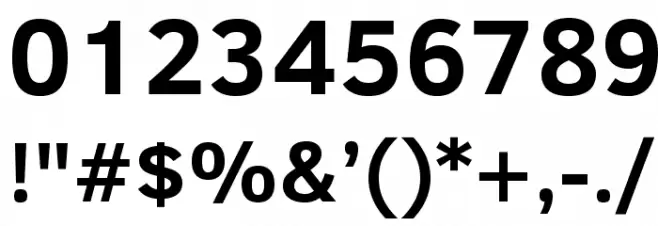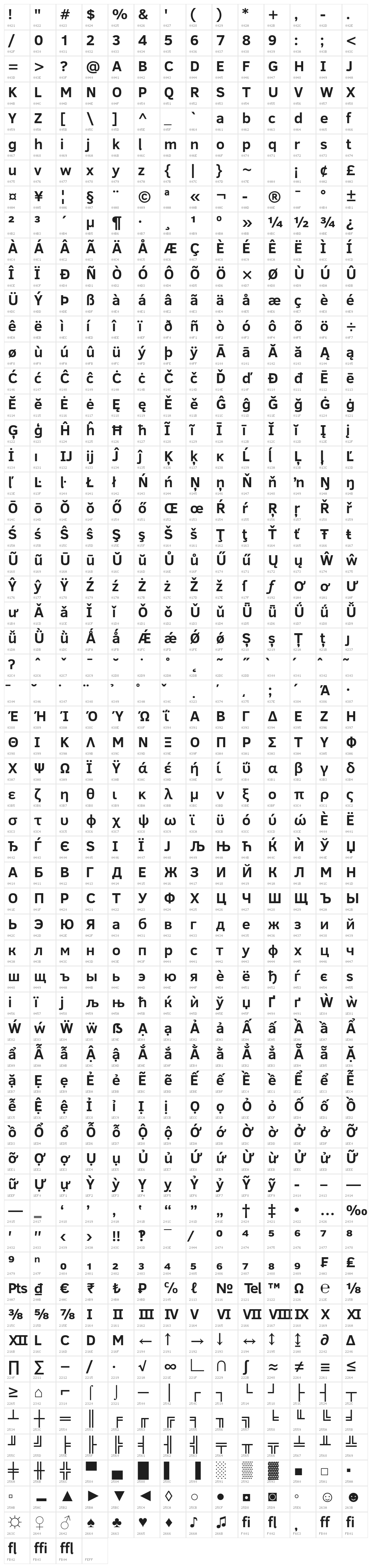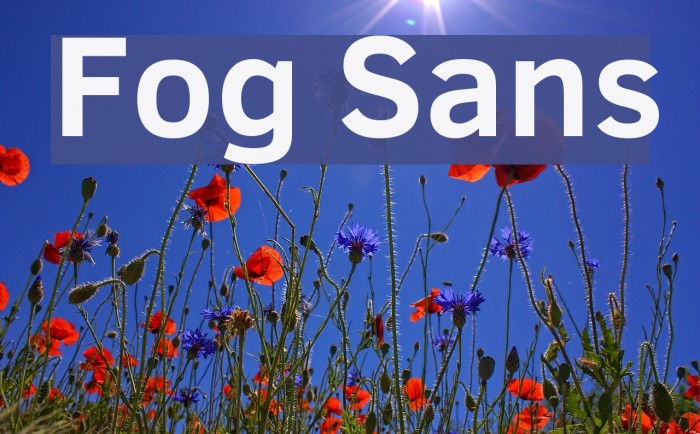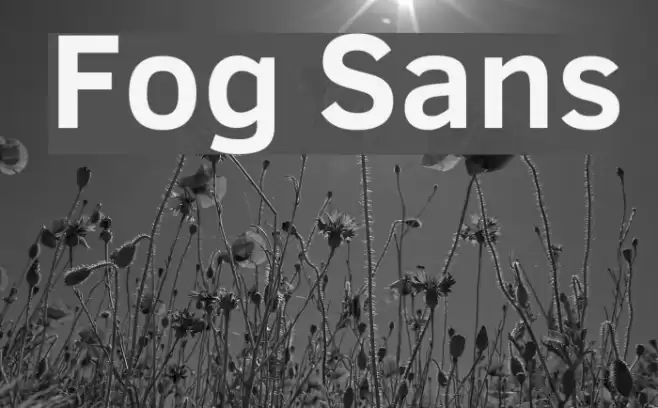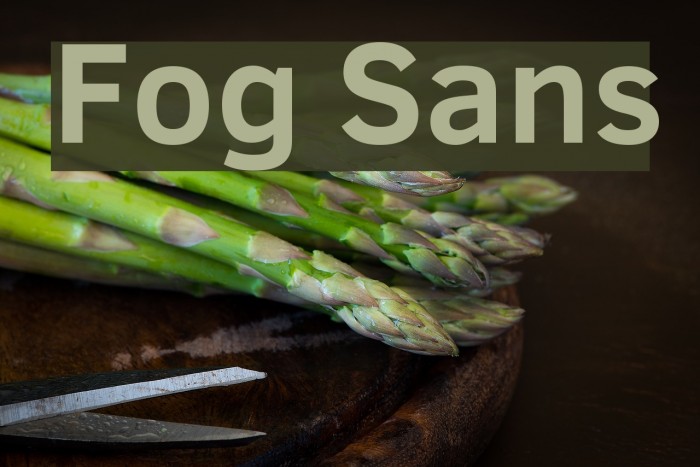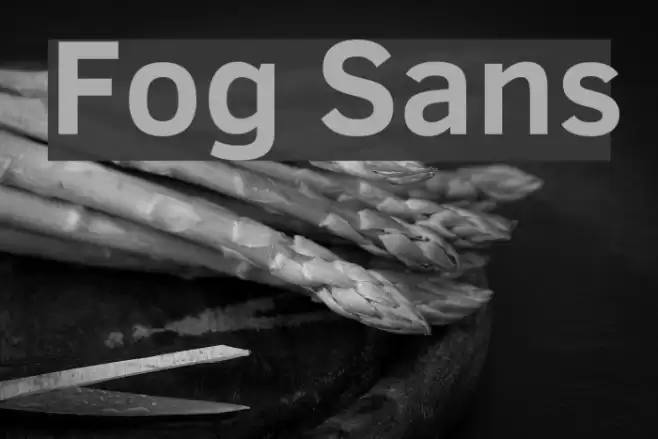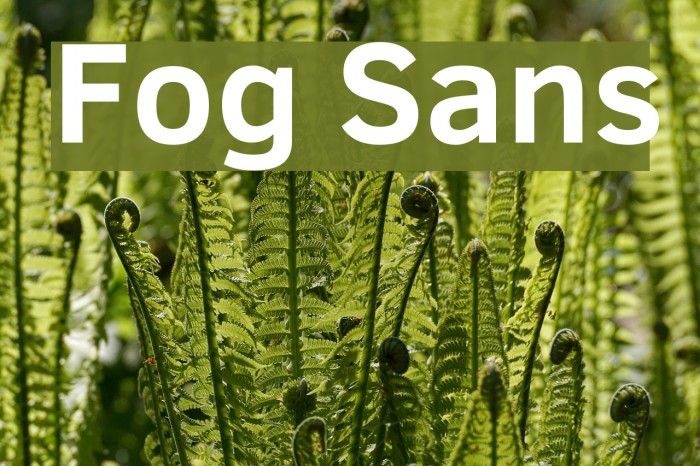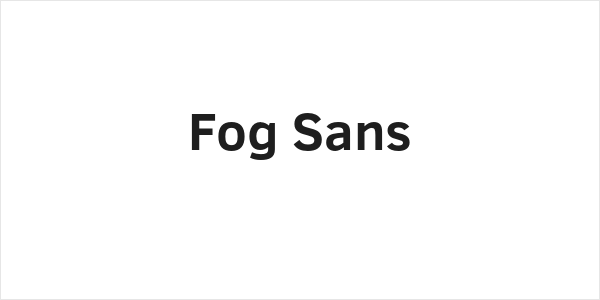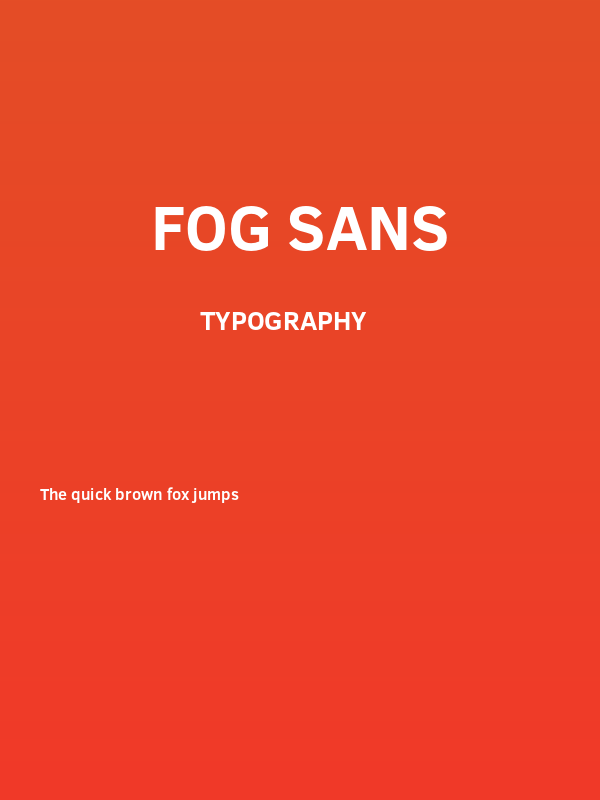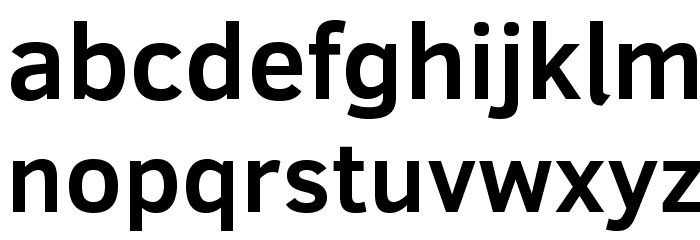
Fog Sans Font
Fog Sans Description
This font is a clean and modern sans-serif typeface characterized by its bold and uniform stroke width. The letters are well-proportioned with a consistent height, making it highly legible. The uppercase and lowercase letters maintain a harmonious balance, while the numerals are clear and distinct. The special characters are designed to complement the overall style, ensuring versatility across various applications. Its simplicity and clarity make it suitable for both digital and print media.
| Proposed Projects | Ideal for branding, advertising, web design, and editorial projects where clarity and modernity are essential. |